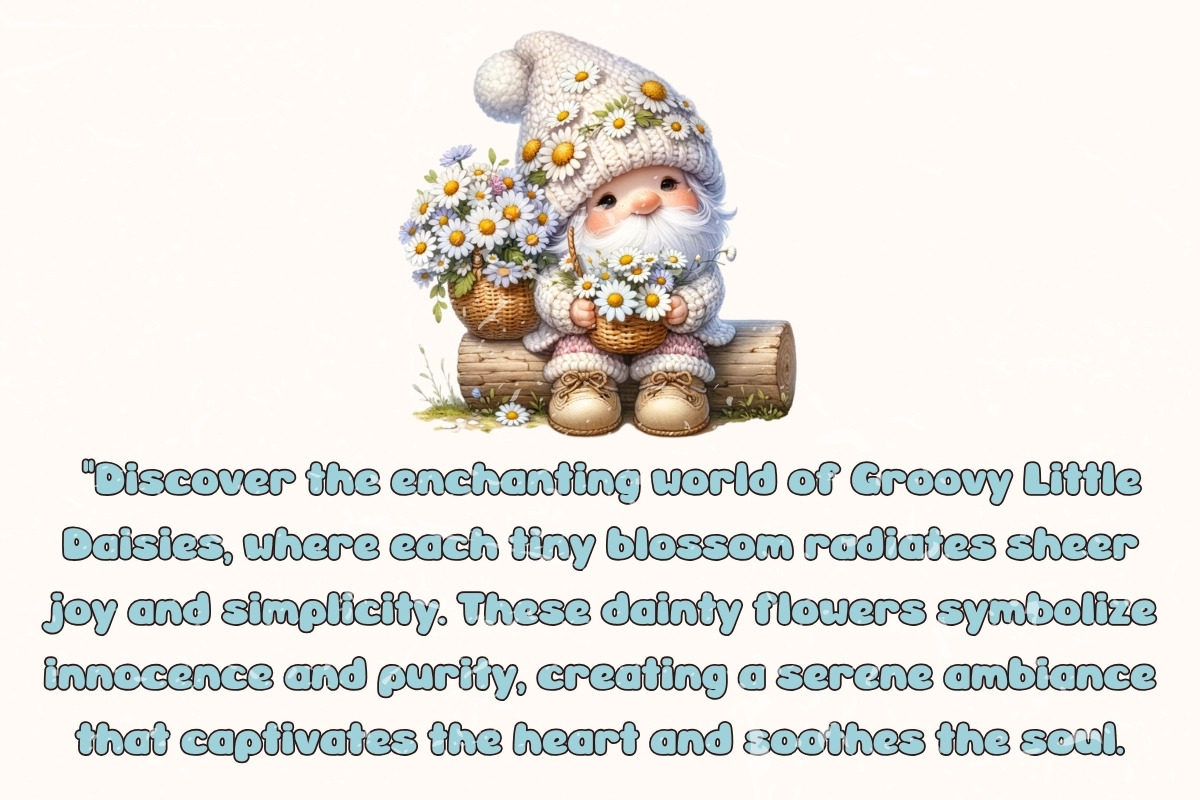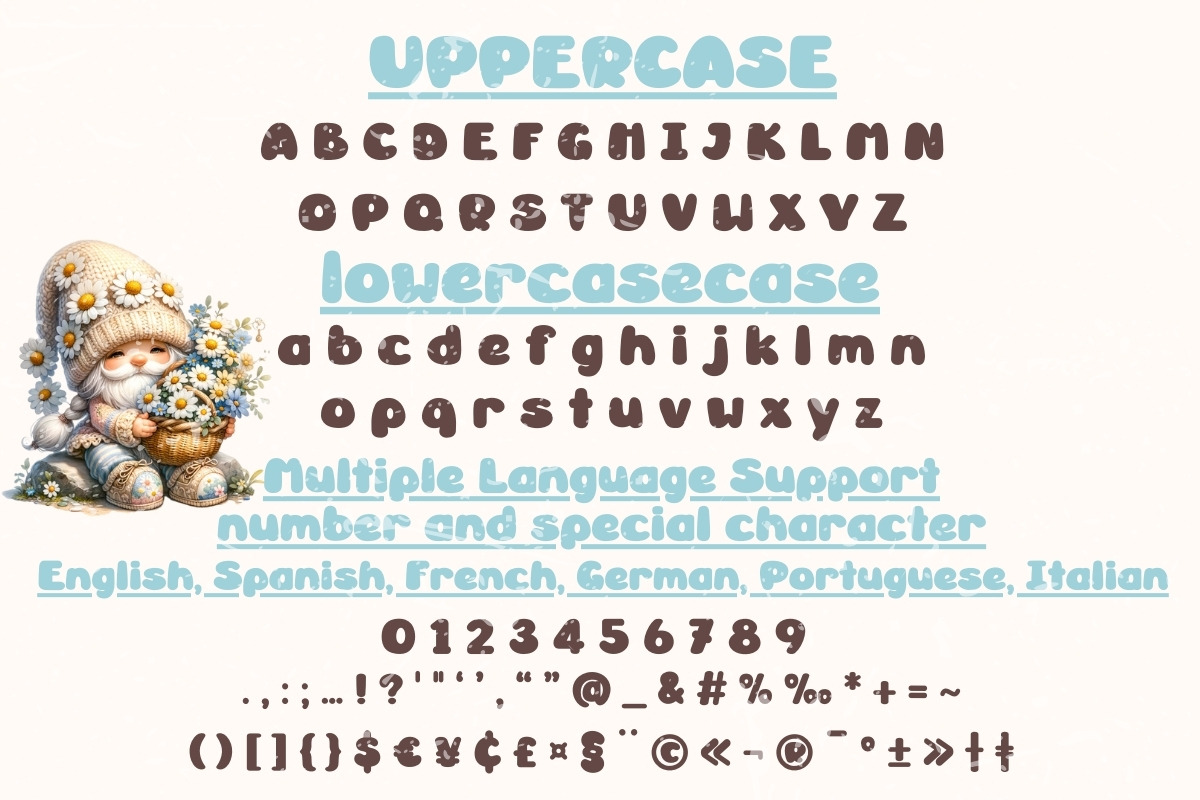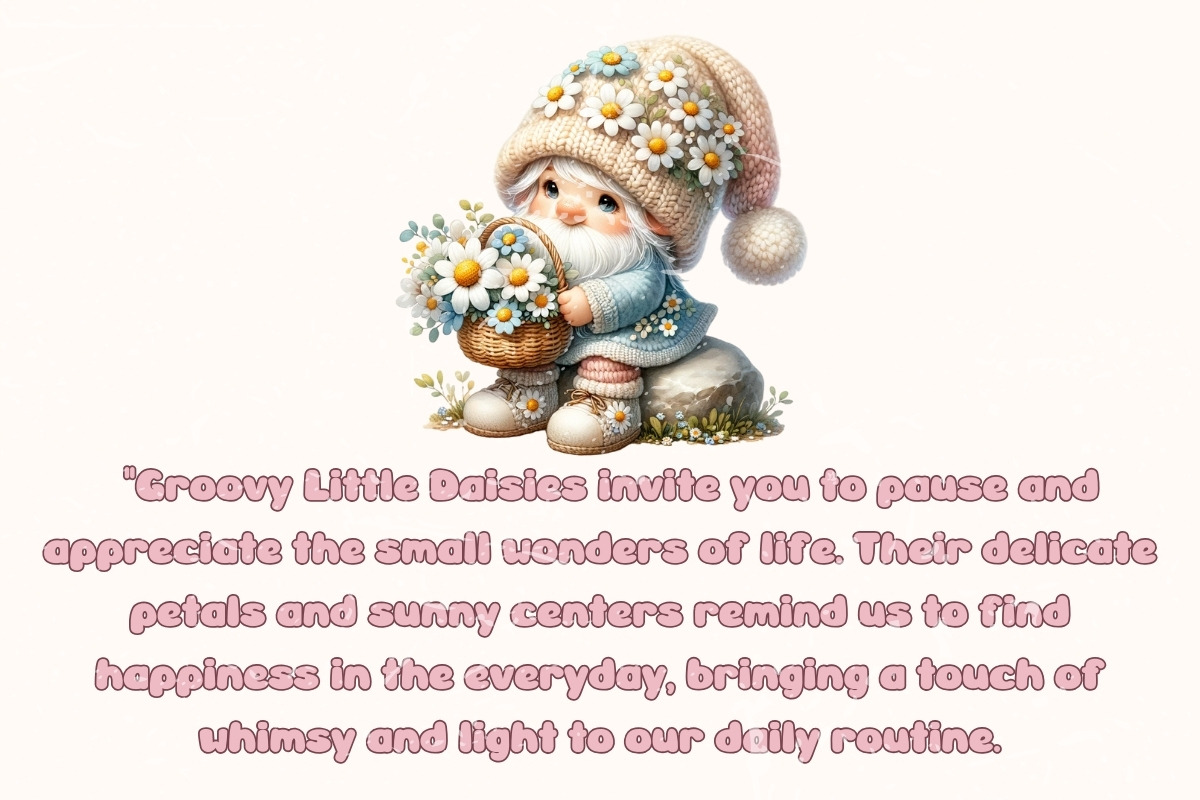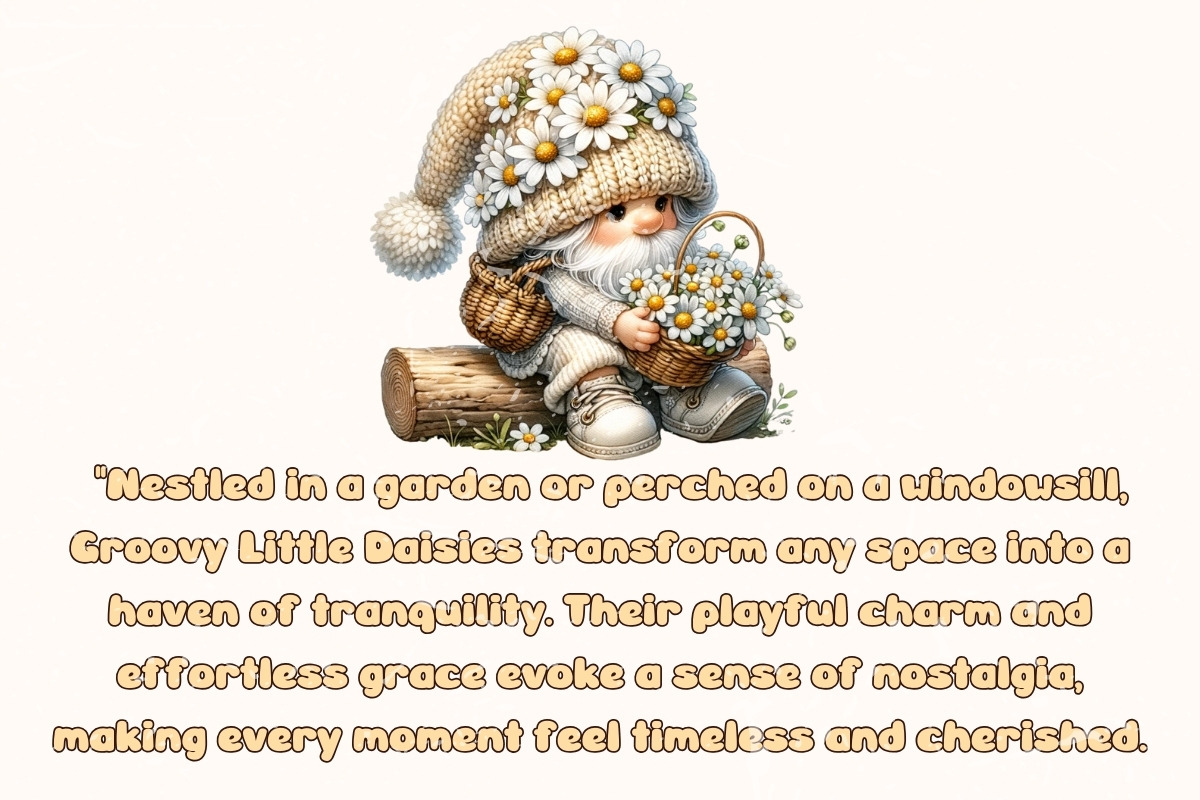
Groovy Little Daisies
Introducing "Groovy Little Daisies," a font that brings the essence of whimsy and delight to every character. With its beautiful cute handwritten style, this font is perfect for projects that require a touch of personal charm and elegance. Each letter in "Groovy Little Daisie" is crafted with care, ensuring that your messages not only convey words but also emotion and character. Ideal for invitations, branding, social media posts, and any project that desires a playful yet sophisticated touch. Let "Groovy Little Daisie" transform your creative ideas into captivating expressions that enchant and engage.